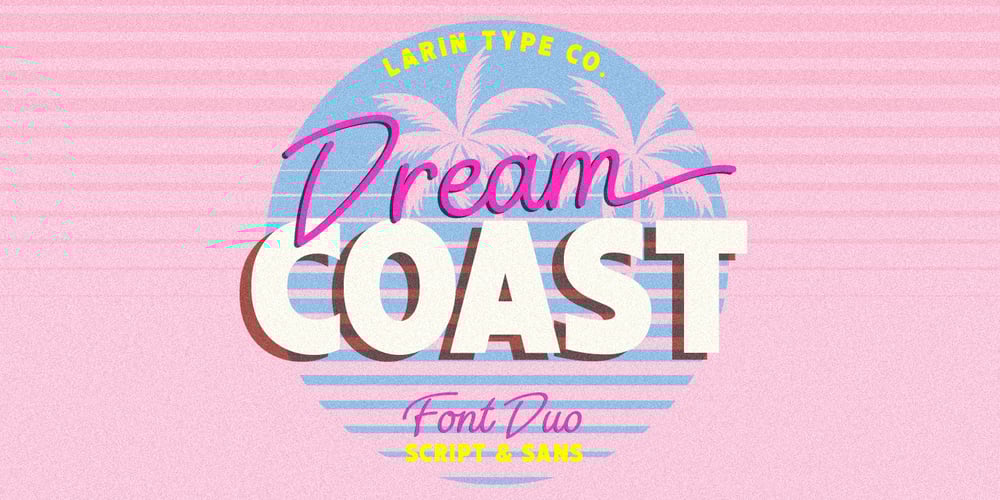
Dream Coast Font Family was designed by Pavel Larin and published by Larin Type Co. Dream Coast contains 2 styles and family package options. Dream Coast is retro font duo inspired by the posters of the 80’s.It includes two styles for script and sans serif i. Sans serif font is a multi-purpose font that is perfect for any project, modern and easy to read. Monoline script includes alternates and ends wash. With their you can create logos, use in advertising, packaging, book covers and magazines, headings, descriptions and much more.